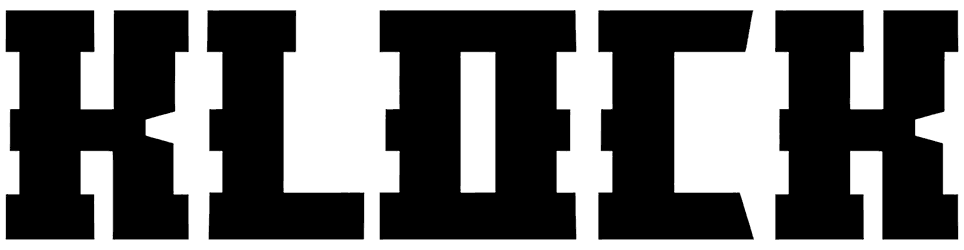
Klock Font
Using a classic font like Klock, which has a strange blocky style, is a big help in making a finished design that will appeal to the largest possible audience.
For both formal and stylistic purposes, this biker font is ideal. If you’re planning on using Klock for anything in the near future, whether it’s business cards, commercials for cosmetics, fashion designs, etc., you’ll be delighted with the outcome.